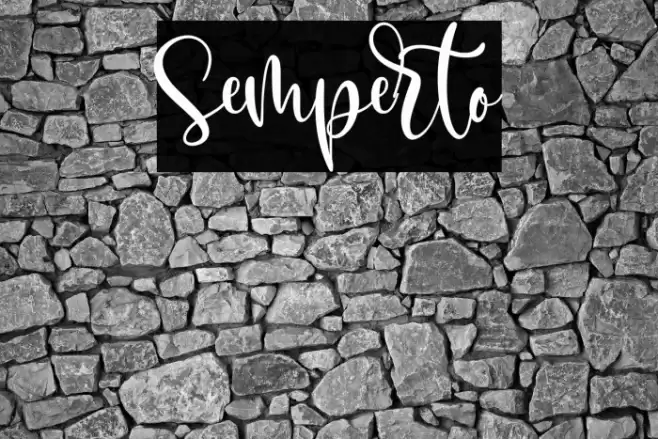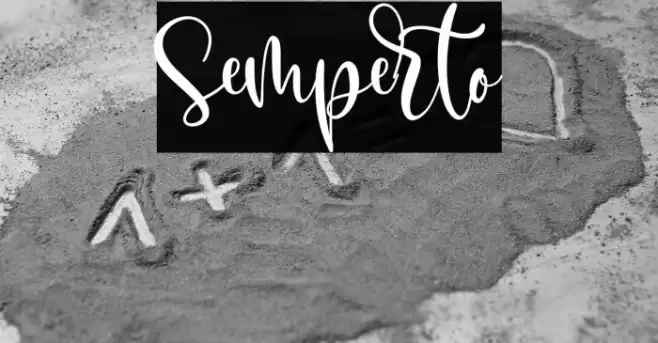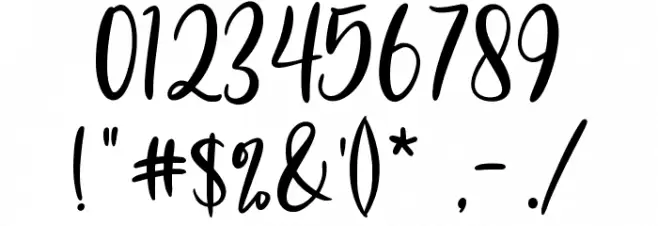
Semperto Font
Semperto Description
This font features a lively and flowing script style, characterized by its elegant and cursive letterforms. The uppercase letters exhibit a playful yet sophisticated flair, with exaggerated loops and swashes that add a sense of movement and grace. The lowercase letters maintain a consistent fluidity, complementing the uppercase with their rounded and interconnected strokes. Numbers and special characters are designed to match the overall aesthetic, ensuring a cohesive look across all elements. The font's hand-drawn appearance gives it a personal and artistic touch, making it ideal for creative and expressive projects.
A lively and elegant script font with flowing, cursive letterforms from Regular fonts.
- Proposed Projects: Ideal for wedding invitations, greeting cards, branding, and social media graphics.
- Use Case: Logos, Headlines, Invitations